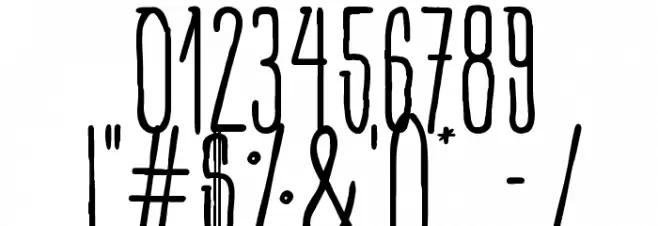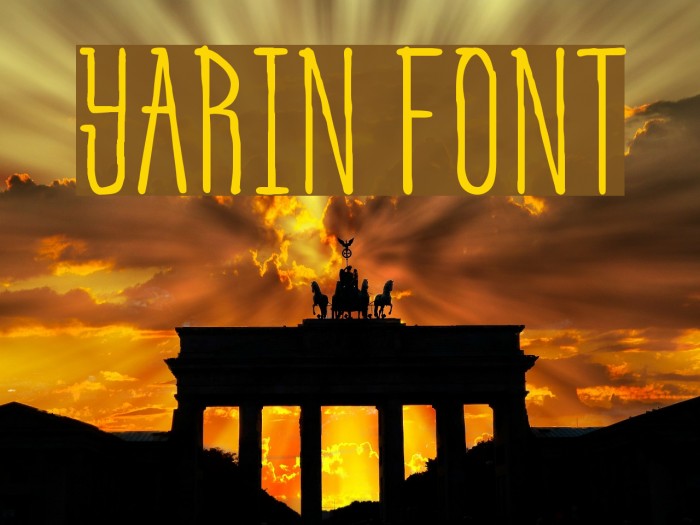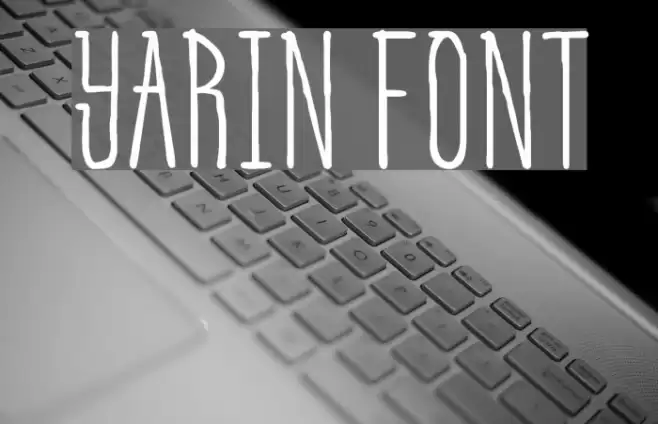
Yarin Font
Yarin Description
This font features a tall, narrow design with elongated characters that give it a distinctive, modern appearance. The strokes are consistent in thickness, creating a uniform look across all characters. The uppercase and lowercase letters maintain a similar height, enhancing the font's sleek and streamlined aesthetic. The numerals and special characters follow the same design principles, ensuring cohesion throughout. This font's unique style makes it stand out, while its legibility remains intact due to the clear, defined lines and spacing.
| Proposed Projects | Ideal for modern branding, posters, and editorial design where a distinctive, stylish look is desired. |